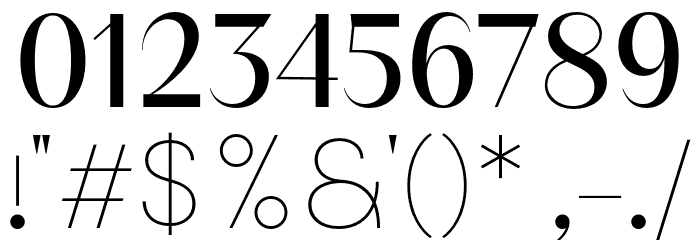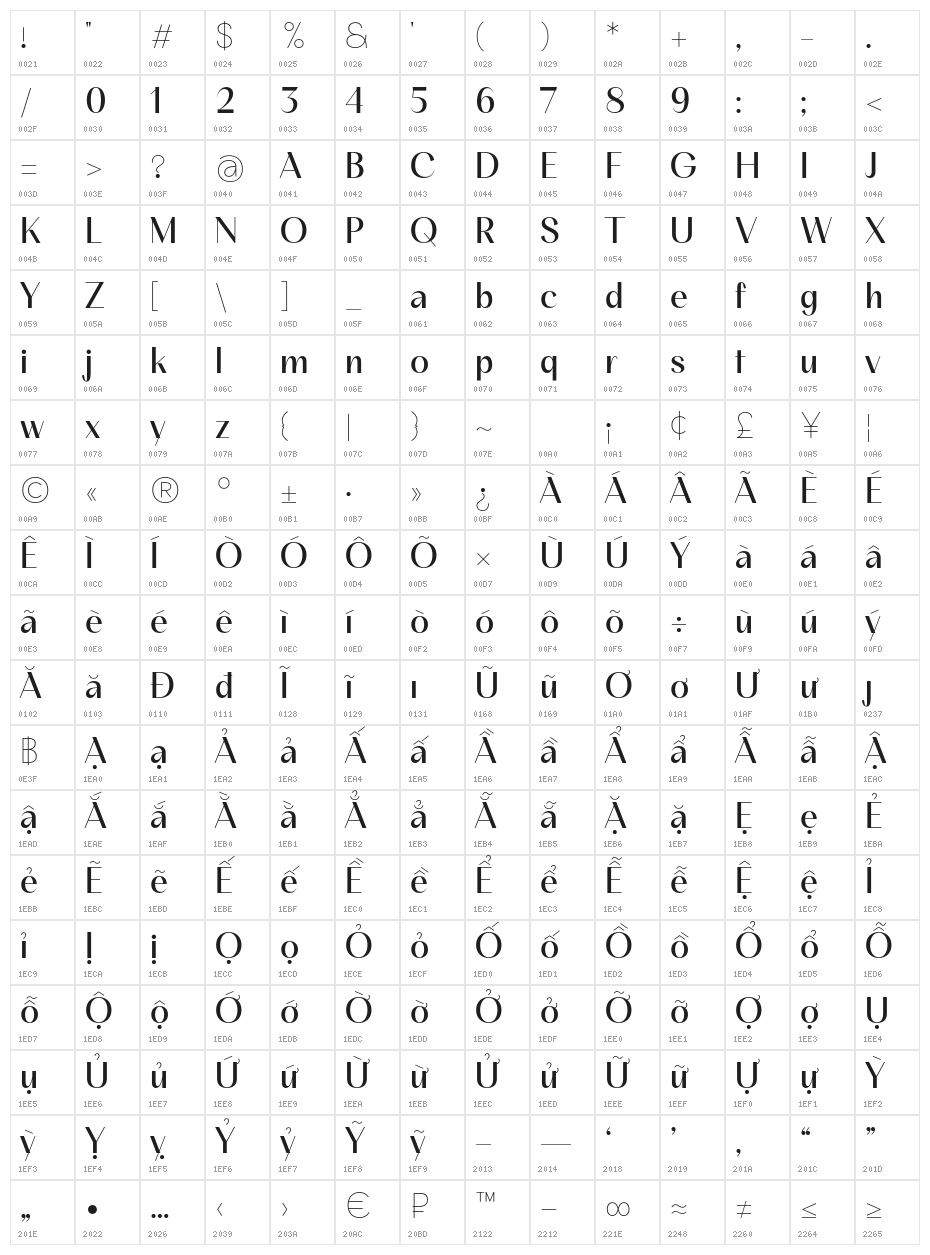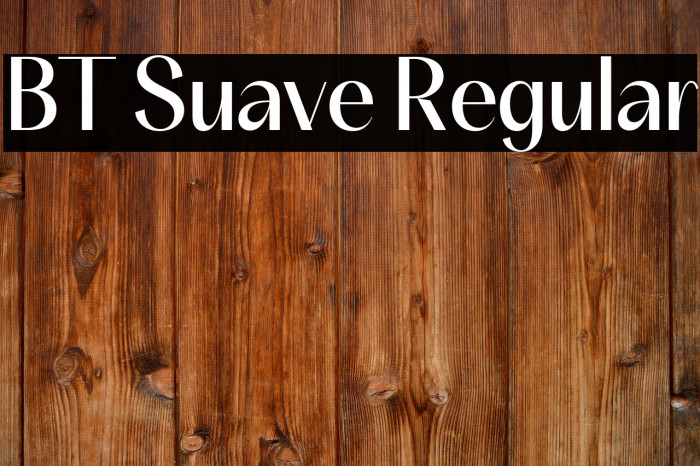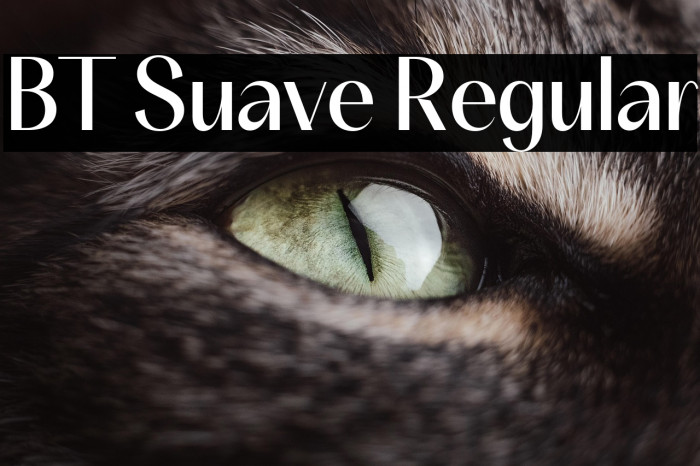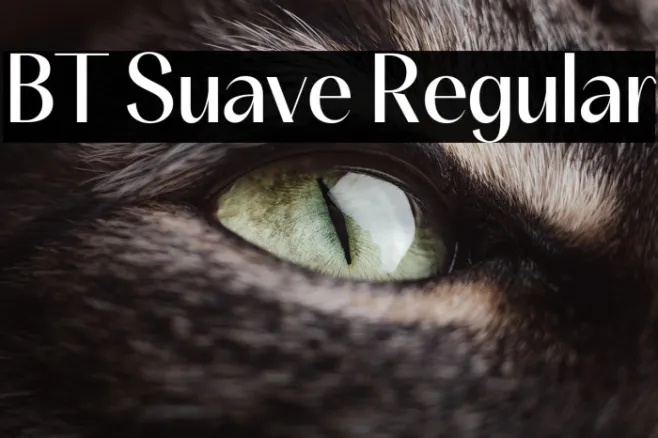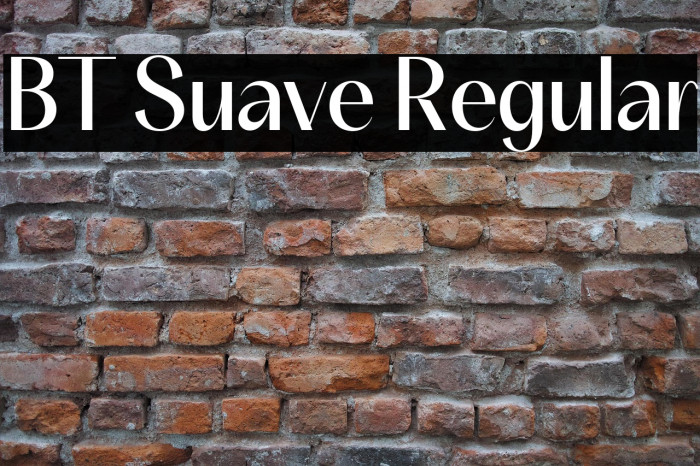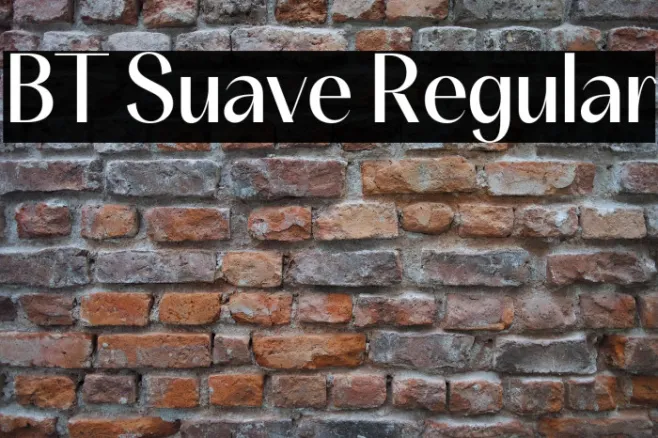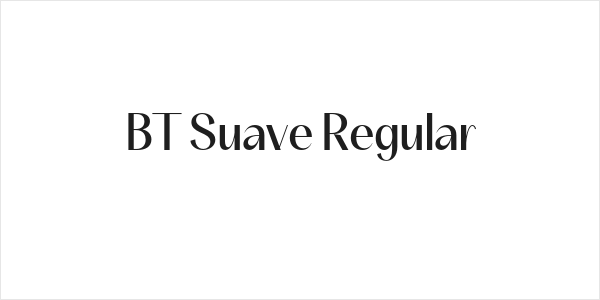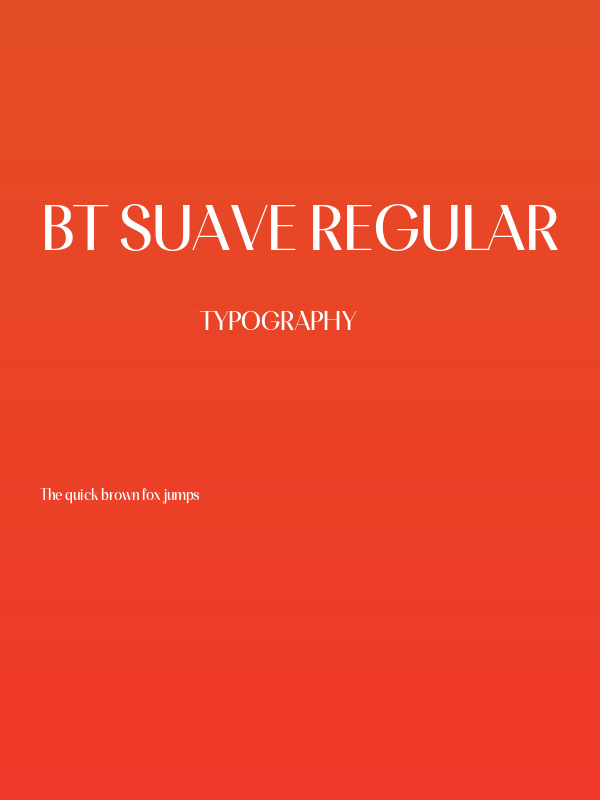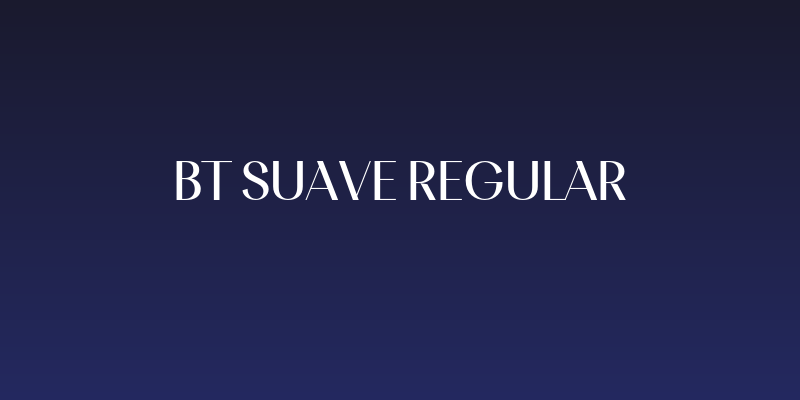
BT Suave Regular Font
BT Suave Regular Description
This font features a sleek and modern design with a high contrast between thick and thin strokes, giving it an elegant and sophisticated appearance. The uppercase letters are tall and slightly condensed, while the lowercase letters maintain a consistent flow with rounded edges. The numerals are bold and easily readable, and the special characters are designed with a unique flair, adding to the overall stylish look. This font is versatile, suitable for both digital and print media, and can be used to create a striking visual impact.
| Use Case | Headlines, Logos, Editorial design |
| Proposed Projects | Ideal for branding, editorial design, fashion magazines, and luxury product packaging. |